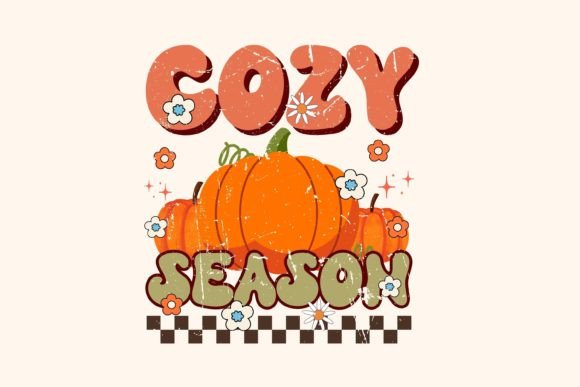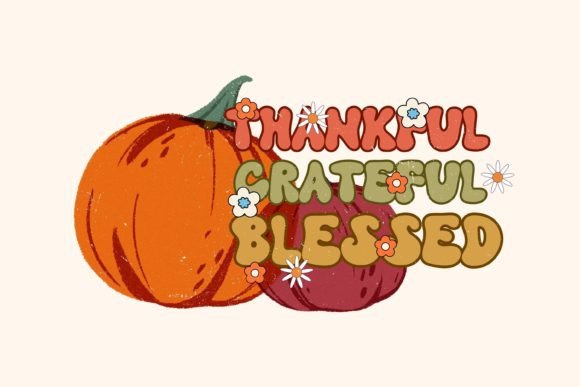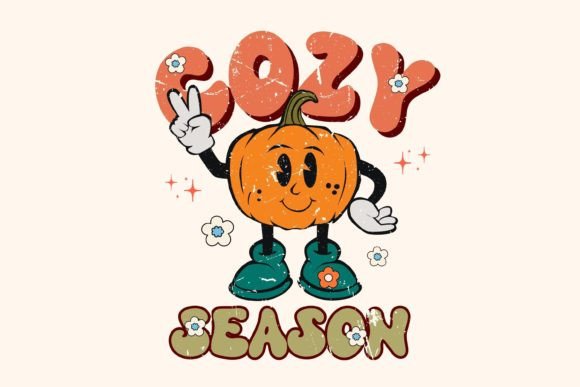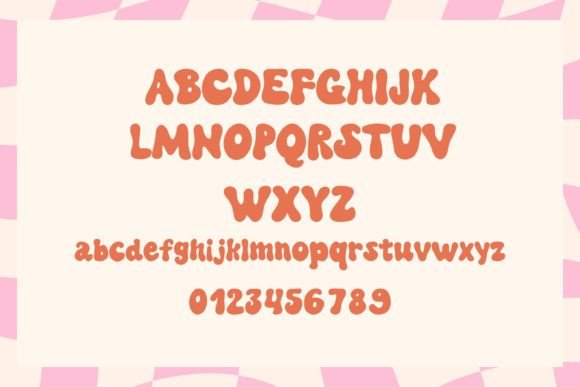
Introducing Retro Cozy Season Font: The Perfect Addition to Your Designs
Are you looking for a font that exudes youth, joy, and a touch of nostalgia? Look no further than Retro Cozy Season Font! This incredibly cute and assertive display font is perfect for adding a playful touch to your party invitations, gatherings, and designs that require a dash of whimsy.
What is Retro Cozy Season Font?
Retro Cozy Season Font is a unique and eye-catching display font that is sure to make your designs stand out. With its bold and playful letters, this font is perfect for creating fun and lively designs that appeal to a younger audience. Whether you’re designing party invitations, social media graphics, or craft projects, Retro Cozy Season Font is the perfect choice.
Key Features of Retro Cozy Season Font
- Cute and Assertive Design: Retro Cozy Season Font features a bold and playful design that is sure to grab attention.
- Perfect for Youthful Designs: This font is perfect for designs that require a touch of youth and joy, making it ideal for party invitations, gatherings, and social media graphics.
- Easy to Read: Despite its bold design, Retro Cozy Season Font is easy to read, making it perfect for use in a variety of designs.
- Versatile: This font can be used in a variety of designs, from digital graphics to print materials.
Uses for Retro Cozy Season Font
Retro Cozy Season Font is a versatile font that can be used in a variety of designs, including:
- Party Invitations: Add a playful touch to your party invitations with Retro Cozy Season Font.
- Gatherings and Events: Use this font to create eye-catching graphics for gatherings and events.
- Social Media Graphics: Add a touch of whimsy to your social media graphics with Retro Cozy Season Font.
- Craft Projects: Use this font to add a personal touch to your craft projects, such as handmade cards and gift tags.
Why Choose Retro Cozy Season Font?
There are many fonts available that claim to be perfect for youthful designs, but Retro Cozy Season Font stands out from the rest. Here are just a few reasons why:
- Unique Design: Retro Cozy Season Font features a unique and eye-catching design that is sure to make your designs stand out.
Retro Cozy Season Font is a unique and eye-catching display font that is perfect for adding a playful touch to your designs. With its bold and playful letters, this font is sure to make your designs stand out. Whether you’re designing party invitations, social media graphics, or craft projects, Retro Cozy Season Font is the perfect choice. So why wait? Download Retro Cozy Season Font today and start creating fun and lively designs that appeal to a younger audience!